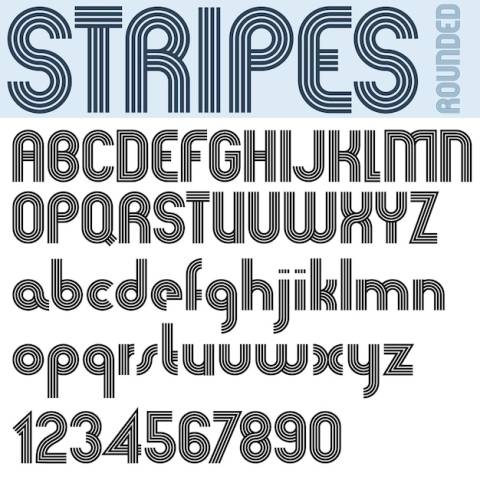
Stripes retro style graphic font, vector alphabet, trendy and stylish letters design. best for use in retro style posters and graphic designs. vector.